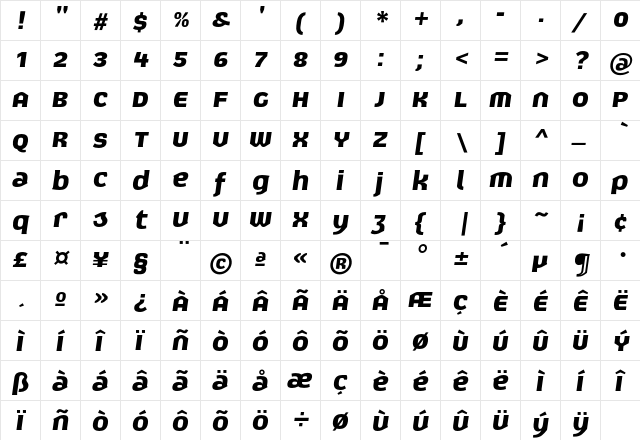
Exert BoldItalic
Design Context for Exert Typeface
Exert is a composed and adaptable typeface that performs quietly and consistently across a wide range of design contexts. Its italic angle brings a sense of urgency and motion to the letterforms. The heavy weight commands attention and anchors typographic hierarchies.
Pro Tip: Use Exert for emphasis, pull quotes, and subheadings where its slanted energy can add rhythm to the layout.